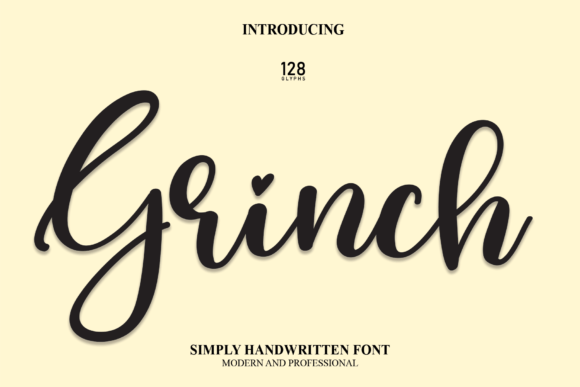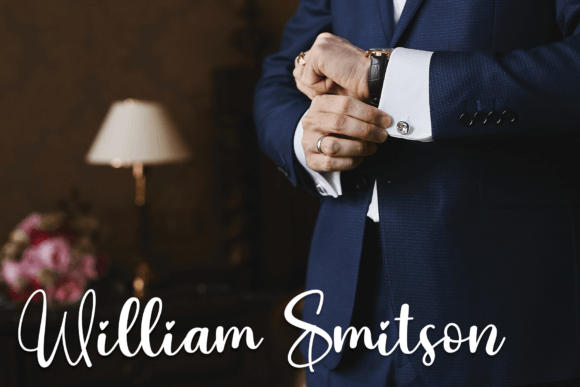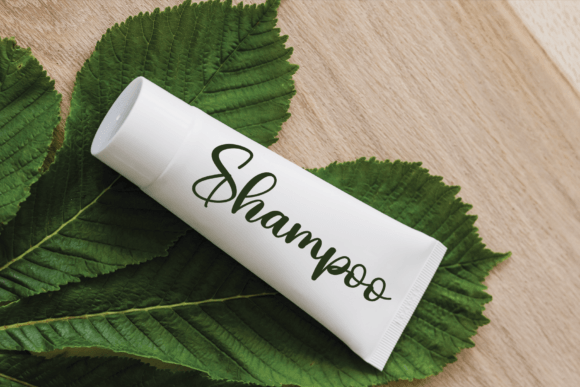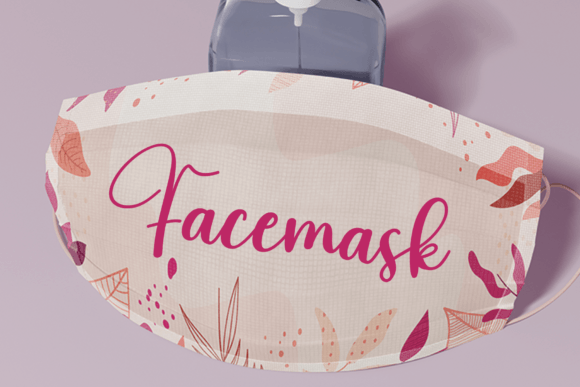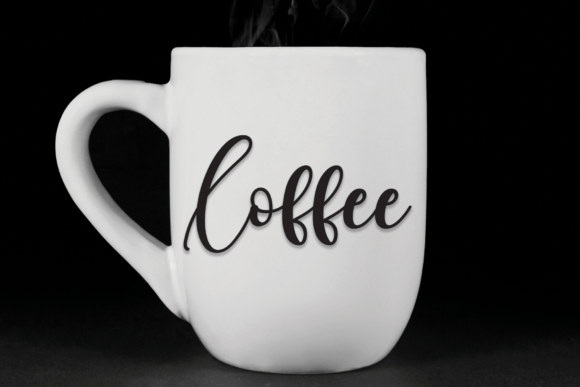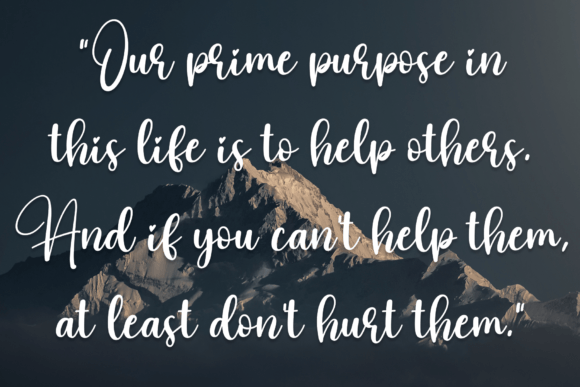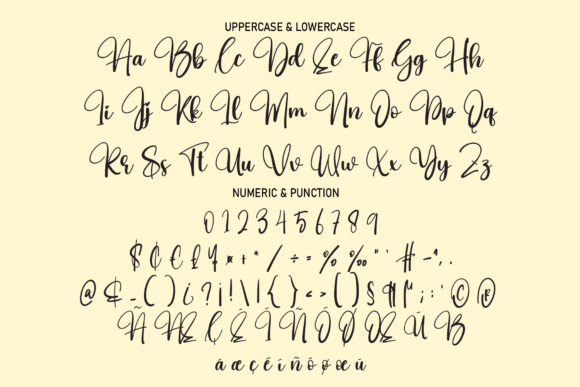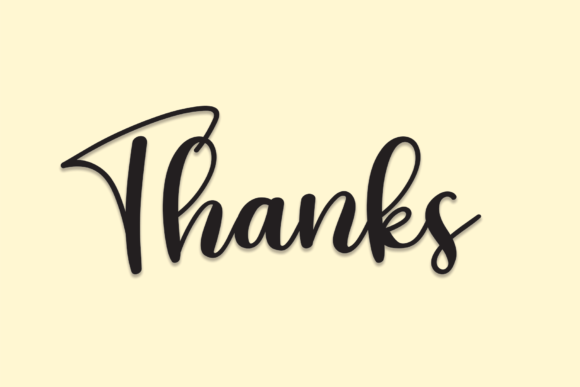
Grinch Font
About Grinch Font
The Grinch Font Download is an enchanting handwritten script typeface designed to bring charm, elegance, and warmth to your projects. With its romantic appeal and versatile style, this font adapts beautifully to both personal and professional uses. Whether you are designing heartfelt greeting cards, eye-catching headlines, or digital branding, Grinch Font ensures your work radiates personality.
Crafted with graceful handwritten strokes, the Grinch Font combines simplicity with refinement. It offers an authentic handwritten feel, making it a reliable choice for designers who want to add emotional depth and visual harmony to their creations.
Features of Grinch Font
When you choose the Grinch Font Download, you get access to features that make your designs stand out:
• Enchanting handwritten script style
• Romantic feel with graceful letterforms
• High readability across print and digital formats
• Works perfectly in both large and small layouts
• A versatile typeface for elegant and creative projects
Best Uses for Grinch Font
The Grinch Font Download is ideal for adding a warm, romantic touch to a wide range of designs, including:
• Greeting cards – Personalized messages that feel heartfelt
• Headlines and posters – Elegant titles with a strong handwritten look
• Wedding invitations – Romantic and stylish scripts for special occasions
• Branding projects – Logos, packaging, and promotional materials
• Social media graphics – Elegant posts that capture attention instantly
• DIY crafts and personal projects – Handwritten details that feel unique
Why Choose Grinch Font
The Grinch Font Download is more than a typeface—it’s a design tool that conveys emotion. Its enchanting style and balanced strokes add a romantic atmosphere, making it perfect for designers who want to combine charm with professionalism. Unlike generic handwritten fonts, Grinch offers a unique balance of readability and style, ensuring your projects feel distinct and memorable.
The Grinch Font Download is an enchanting handwritten script font that adds elegance and romance to your creative work. Perfect for greeting cards, wedding invitations, headlines, and branding, it’s a versatile typeface that adapts beautifully to various design needs.